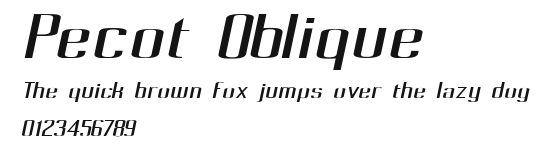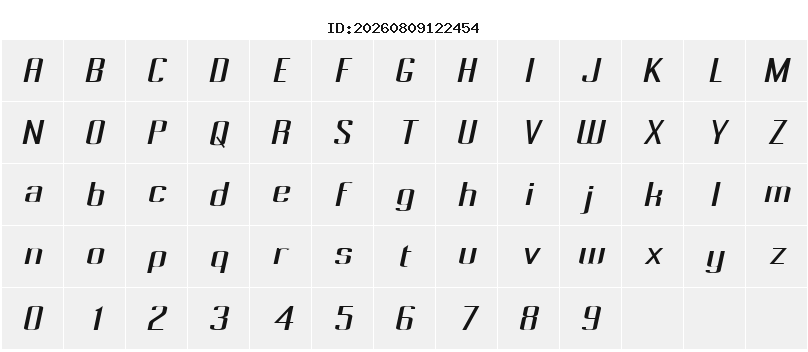
• Font Name: Pecot Oblique
About Pecot Oblique.ttf
Pecot Oblique.ttf is a modern, elegant sans-serif font designed for ultimate readability and visual harmony. Perfect for branding, headlines, web design, and print materials.